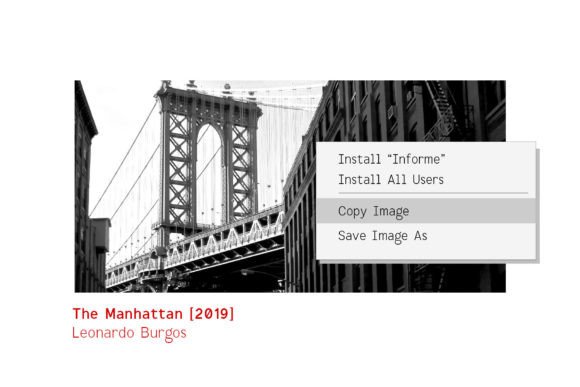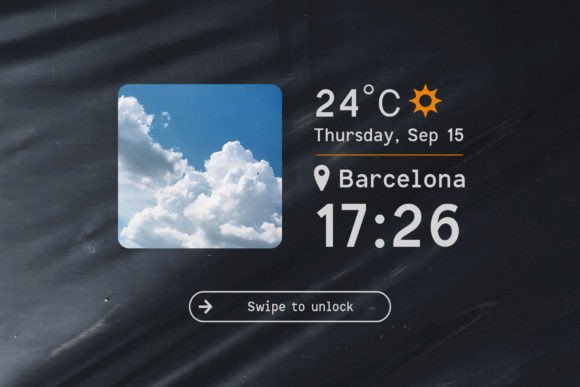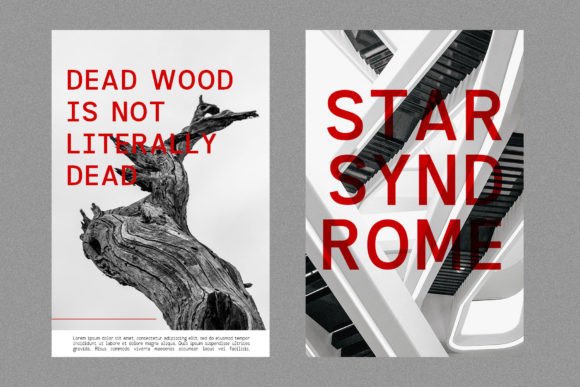
Introduction to Informe Font
Informe is a modern monospaced sans serif typeface.
Built with strong letter shapes, and industrial style, this font was designed to read well in small and large sizes Informe is suitable for digital interfaces, simple coding, labels, tickets, posters, and more.